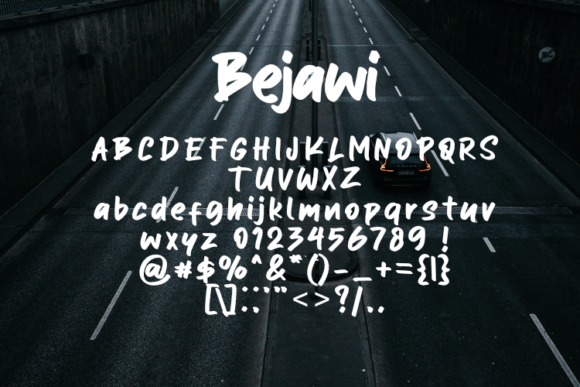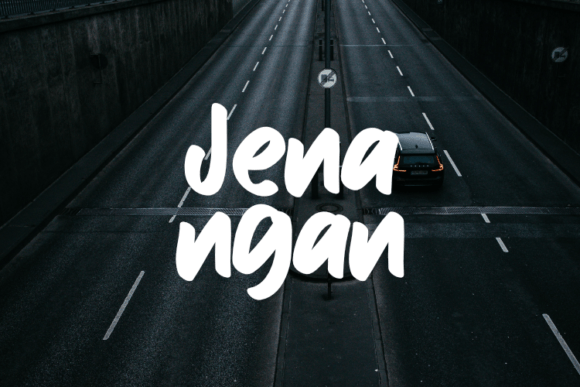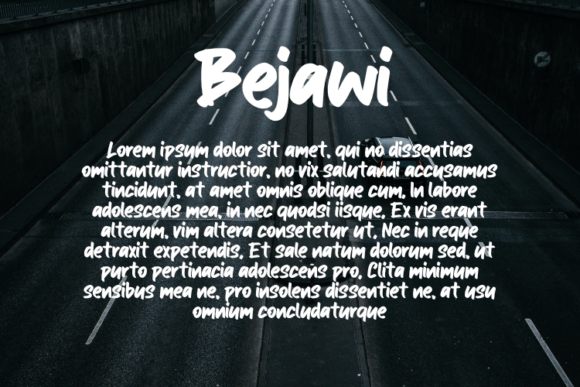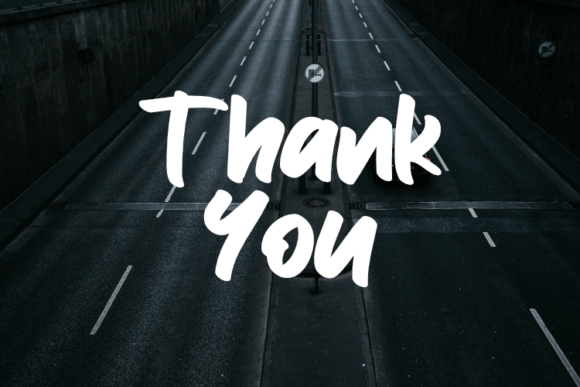
The Birth of a Design Icon: Bejawi Font
As designers, we’ve all been there – staring at a blank canvas, waiting for that spark of inspiration to strike. For some, it’s the perfect typography that sets the tone for an entire project. And that’s exactly what happened when the Bejawi Font was born. This enchanting font is designed to elevate your apparel designs, effortlessly combining style and readability.
Whether you’re a seasoned pro or just starting out, Bejawi Font is a valuable addition to your toolbox. Its versatility makes it a perfect fit for a wide range of designs, from bold statements to subtle accents. And with seamless integration across all software, you can focus on what matters most – creating something truly remarkable.
Bejawi Font Key Features
- Font Family: Bejawi is a typeface with a unique, handwritten style, ideal for casual and creative projects.
- Character Count: Bejawi font contains a wide range of characters, including uppercase and lowercase letters, numbers, and punctuation marks.
- Resolution: Designed to be scalable, Bejawi font is suitable for both low-resolution and high-resolution displays.
- Unique Characteristics: Bejawi’s handwritten style and subtle imperfections give it a personal, human touch, making it perfect for creative and artistic projects.
Bejawi Font Review
Overall, I think Bejawi is a great font for those looking to add a unique, handwritten feel to their designs ✨. Its cursive style is both elegant and playful, making it perfect for invitations, social media posts, and other creative projects.
- Uniquely stylized, cursive script that adds a touch of personality to designs
- Well-suited for a wide range of creative projects, from invitations to social media posts
- Works well in both uppercase and lowercase formats
However, I do have a few concerns:
- May not be suitable for formal or professional applications due to its cursive style
- Limited font sizes and styles may limit its versatility
- May require adjustments for optimal readability at smaller font sizes
- ⚠️ May not be the best choice for those who need a highly legible font for large blocks of text
Overall, I would recommend Bejawi to designers looking for a unique, creative font for specific projects. While it has some limitations, its unique style and versatility make it a great addition to any design toolkit.
Getting the Most Out of Bejawi Font
For optimal results, use Bejawi font for headings and titles, as its bold and decorative style makes it well-suited for emphasis.
Combine Bejawi font with a clean and simple font for body text to create a visually appealing contrast.
Bejawi font is ideal for:
- Party and event invitations
- Editorial and magazine design
Alternatives to Bejawi Font for Designers
Great Vibes Font is a beautiful, elegant script font suitable for various design purposes, including wedding invitations, logos, and branding materials. It’s perfect for designers who want to create a sophisticated and modern look.
Comparison to Bejawi Font: While Bejawi Font has a more playful and casual feel, Great Vibes Font is more refined and sophisticated. Great Vibes Font is ideal for designs that require a touch of elegance, whereas Bejawi Font is better suited for more casual and creative projects.
Pacifico Font is a modern script font with a relaxed and casual feel, making it perfect for designers who want to create a laid-back and friendly atmosphere. It’s ideal for use in logos, branding materials, and website headers.
Comparison to Bejawi Font: Pacifico Font has a similar relaxed feel to Bejawi Font, but it’s more polished and refined. Pacifico Font is better suited for designs that require a modern and friendly look, whereas Bejawi Font is more playful and casual.
Alex Brush Font is a elegant and sophisticated script font with a touch of elegance, making it perfect for designers who want to create a high-end and luxurious look. It’s ideal for use in logos, branding materials, and website headers.